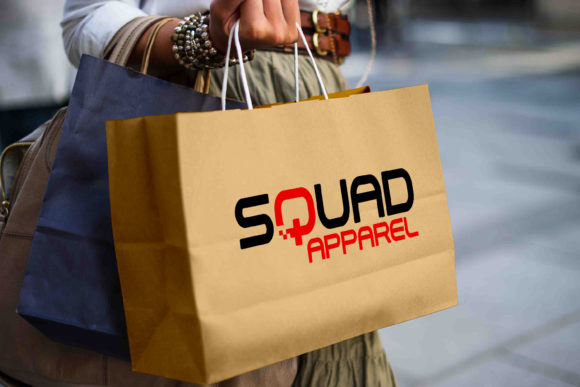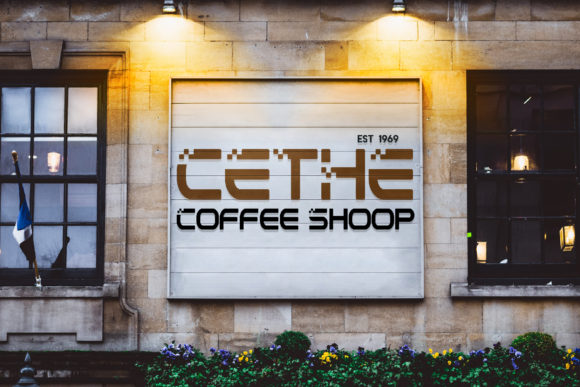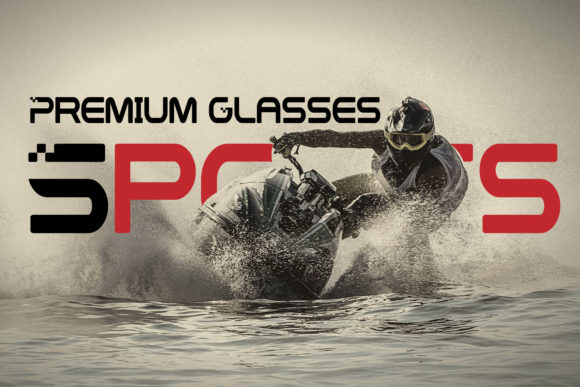
Unleash Your Creativity with the Faster Font
Have you ever stared at a blank page, waiting for inspiration to strike? The blank slate can be intimidating, but what if you had the perfect tool to spark your creativity? For designers, finding the right font can be a game-changer. That’s where the Faster Font comes in – a fresh and unique display font designed to elevate your branding, packaging, and designs.
Whether you’re working on a product label, poster, or t-shirt design, the Faster Font is the perfect addition to your font library. Its playful and modern style makes it versatile and easy to use, allowing you to bring your creative vision to life. With the Faster Font, you’ll be able to create eye-catching designs that stand out from the crowd.
Faster Font Key Features
- Unique Font Technology: Faster Font utilizes advanced font rendering technology, allowing for faster rendering and reduced CPU usage, making it ideal for high-performance applications.
- Compact File Size: Faster Font files are optimized for size, with a typical file size of 20-50KB, making it easy to integrate into digital products without compromising storage space.
- High Resolution Support: Available in resolutions up to 4K (3840 x 2160 pixels), ensuring crisp and clear text display on high-resolution devices.
- Scalability: Designed to scale seamlessly across various font sizes, from small to large, without compromising on readability or aesthetics.
Faster Font Review
Faster Font is an intriguing font that promises to deliver faster loading times without sacrificing style. As a designer, I appreciate its simplicity and clean aesthetic ✨. The font is well-suited for digital interfaces, particularly in scenarios where speed is crucial.
One of the standout features of Faster Font is its lightweight design ✨, which makes it ideal for web applications and mobile apps. The font’s reduced file size means faster loading times, even on slower connections.
However, there are some limitations to consider ⚠️:
- Limited character set: Faster Font’s character set is somewhat limited, which may not be suitable for applications that require a wide range of characters.
- Not suitable for print: Due to its digital focus, Faster Font may not be the best choice for print materials, where a more robust font is often preferred.
Overall, I think Faster Font is a solid choice for digital applications where speed is essential. While it may have some limitations, its clean design and lightweight nature make it a great option for designers who need a fast and efficient font.
Getting the Most Out of Faster Font
To get the most out of Faster Font, use it in combination with other design elements, such as bolding or italicizing text to create visual interest. You can also use Faster Font in conjunction with other font styles to create a unique and eye-catching design.
Faster Font is ideal for use in titles, headings, and other text elements where a bold and eye-catching font is needed. It’s also great for use in social media graphics, presentations, and other visual content where a clear and concise message is important.
Alternatives to Faster Font for Designers
Open Sans is a clean, modern sans-serif font that works well for digital interfaces. It is highly legible and suitable for body text. Use it when you need a clear and readable font for large blocks of text.
Compared to Faster Font, Open Sans is more versatile and suitable for a wider range of applications, but it may not be as attention-grabbing.
Lato is a sans-serif font with a friendly, approachable feel. It is highly customizable and suitable for a variety of uses, from body text to headlines. Use it when you need a font that is both readable and visually appealing.